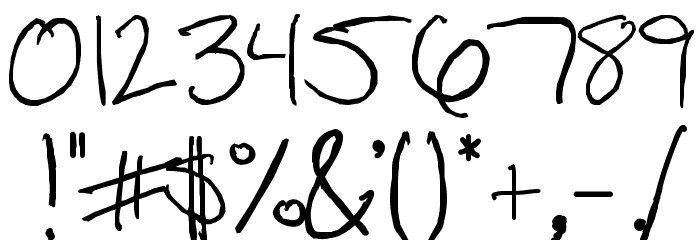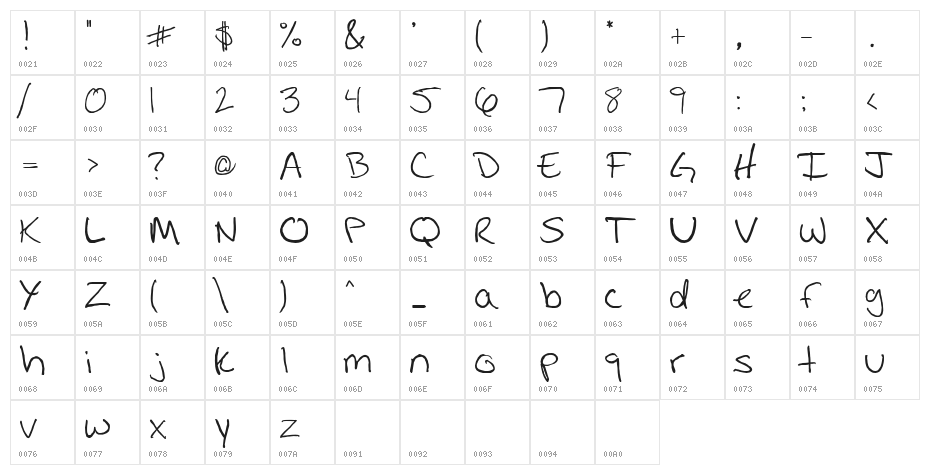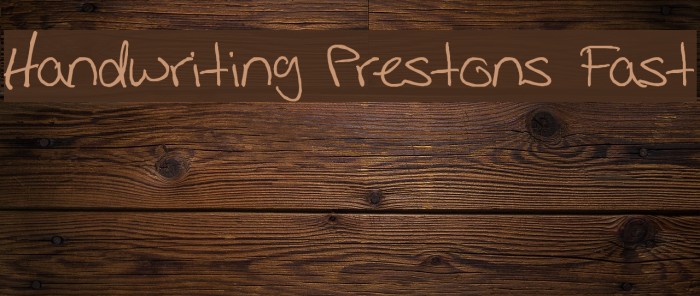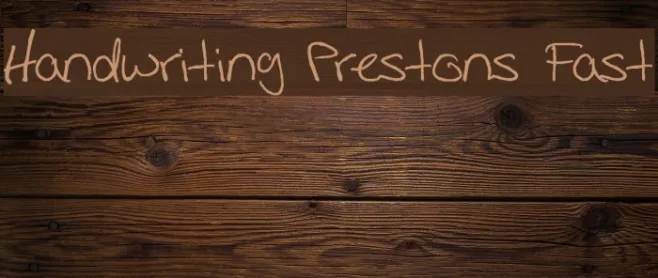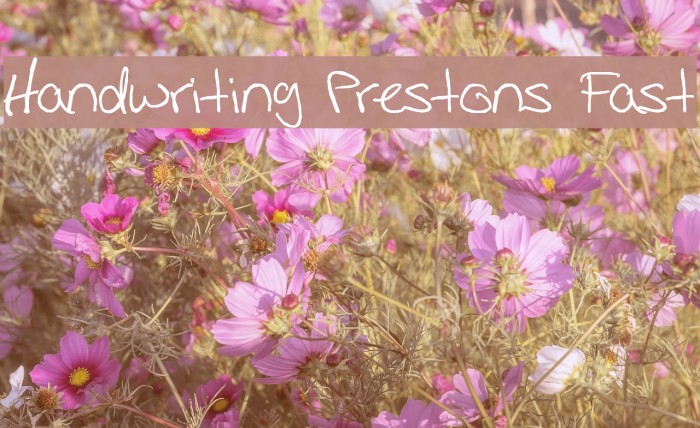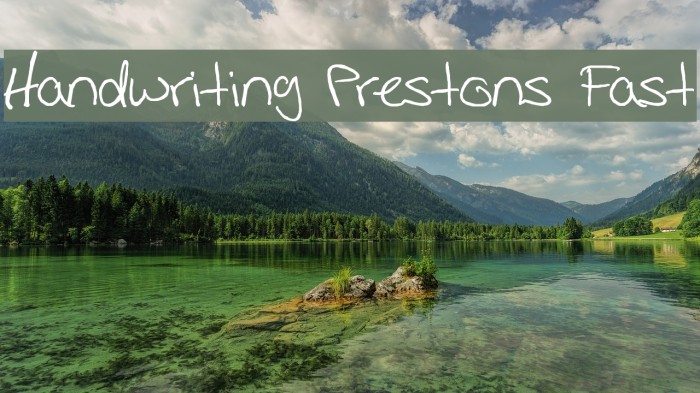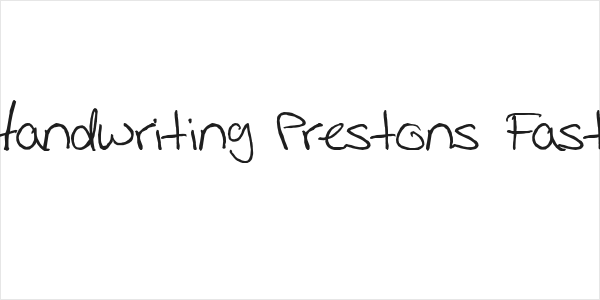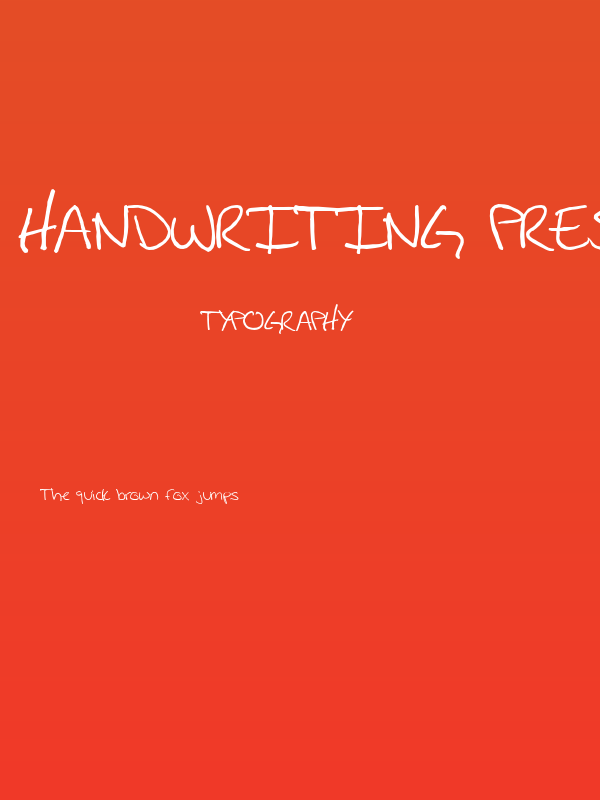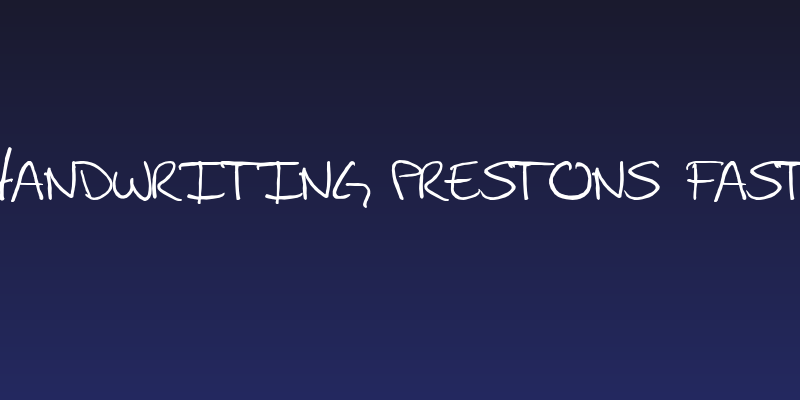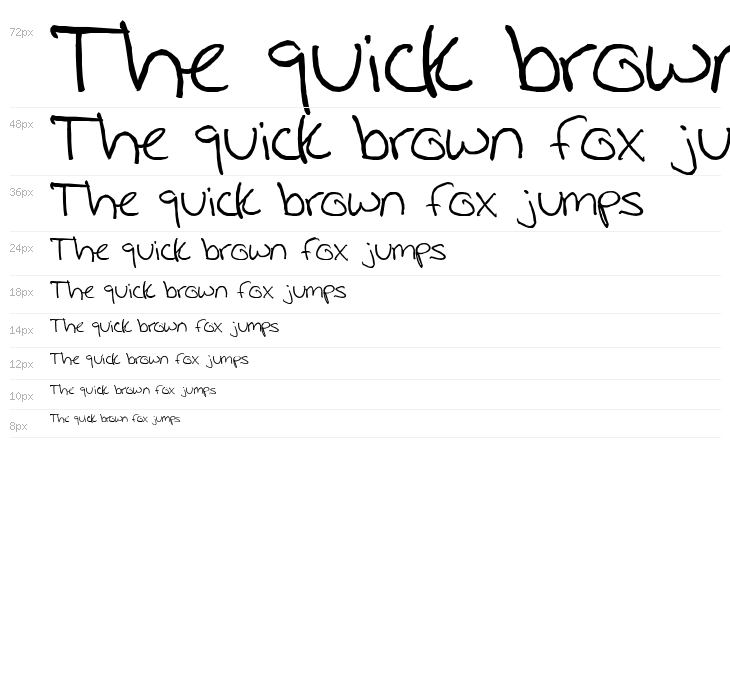
Handwriting Prestons Fast Font
Handwriting Prestons Fast Description
This font exhibits a casual, handwritten style with a playful and informal appearance. The letters are unevenly spaced and vary in size, mimicking the natural flow of handwriting. The strokes are bold and slightly irregular, adding to the authentic handwritten feel. The uppercase and lowercase letters maintain a consistent style, with rounded edges and a slight slant. Numbers and special characters follow the same aesthetic, ensuring a cohesive look across all glyphs. This font is ideal for projects that require a personal touch or a relaxed, friendly vibe.
| Proposed Projects | Ideal for greeting cards, personal notes, informal invitations, and creative projects that require a personal touch. |